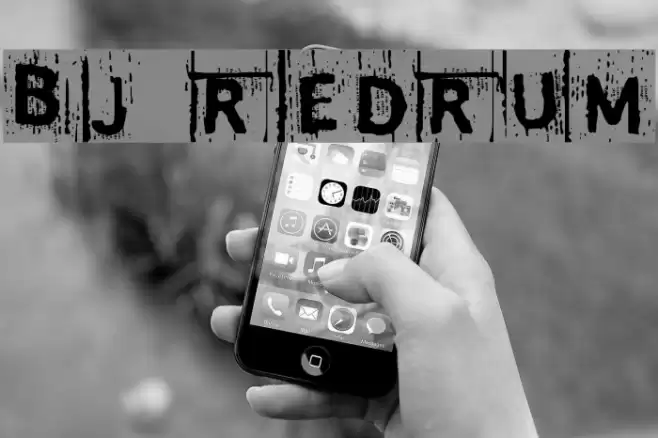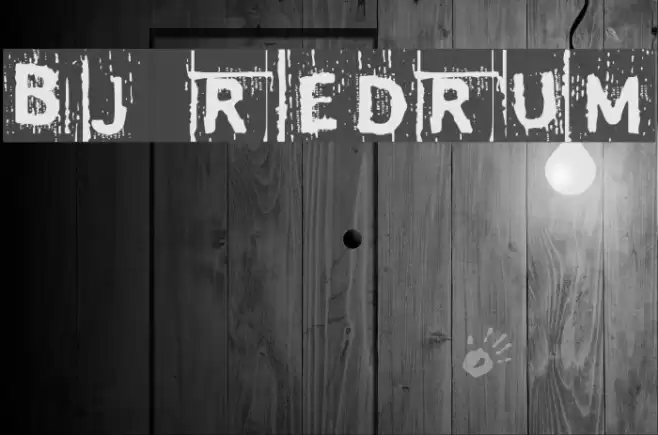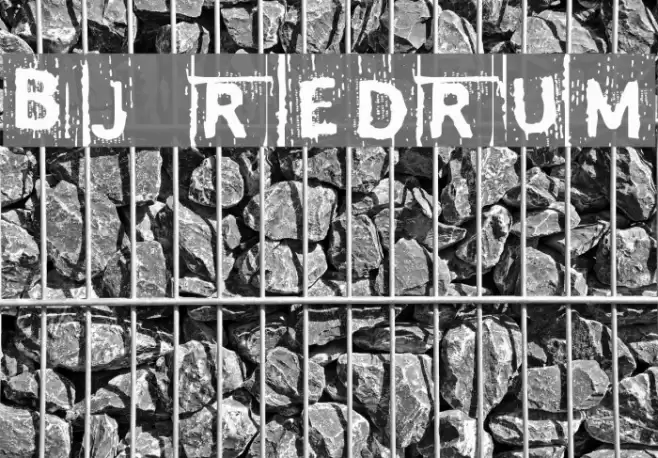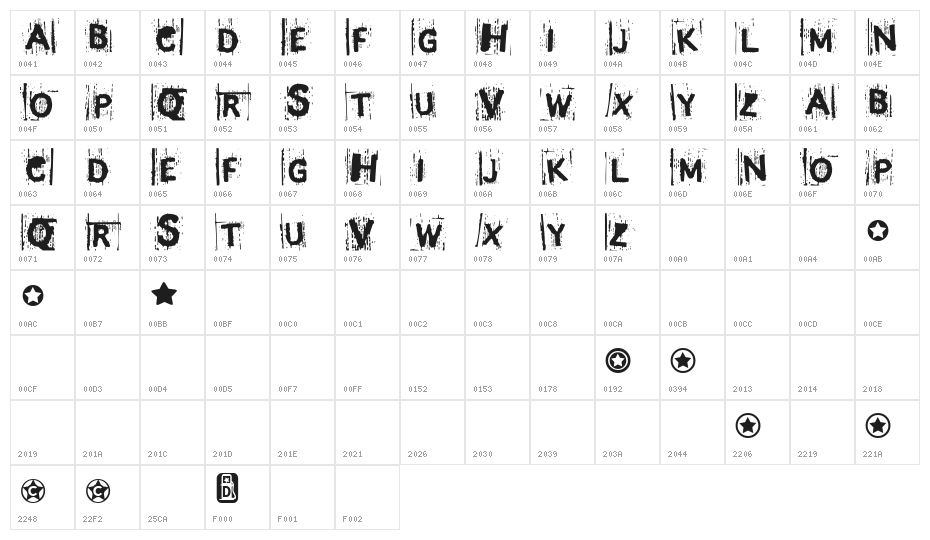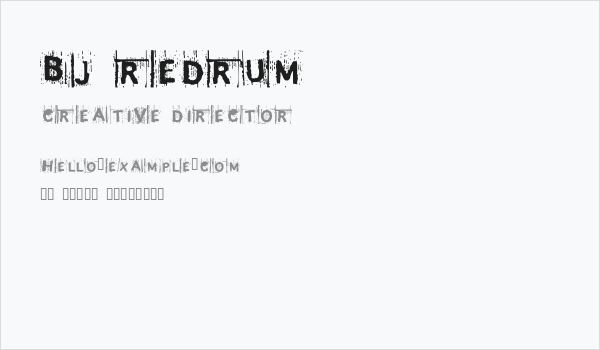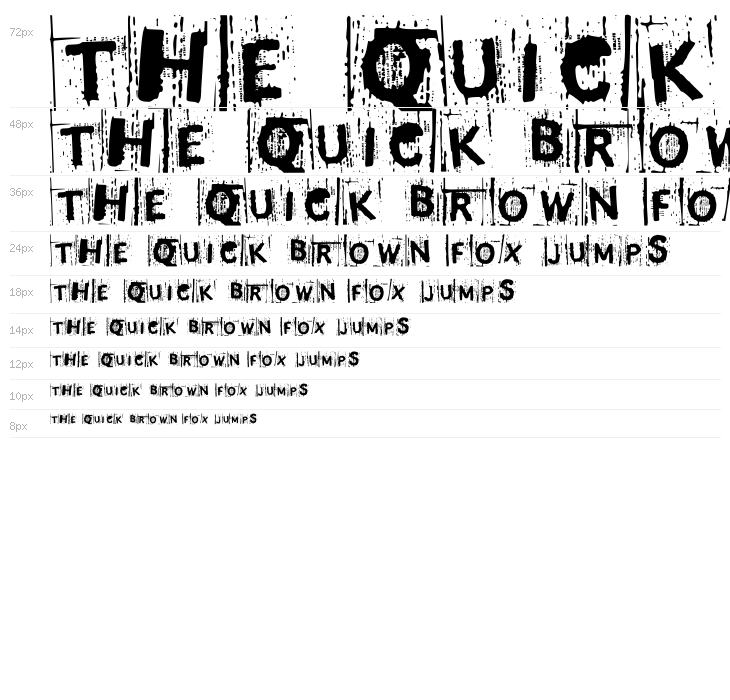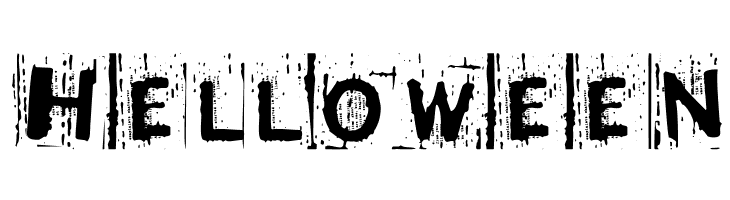
BJ REDRUM Font
BJ REDRUM Description
This font features a distressed, grunge style that gives it a rugged and worn appearance. The characters are bold and have a textured look, as if they have been stamped or printed with a rough surface. The uppercase and lowercase letters maintain a consistent style, with irregular edges and a slightly chaotic feel. This font is ideal for projects that require a raw, edgy aesthetic, such as horror-themed designs, music album covers, or rebellious branding. The overall impression is one of intensity and boldness, making it suitable for impactful headlines or titles.
A distressed, grunge-style font with a rugged, textured appearance from Halloween fonts.
- Proposed Projects: Ideal for horror-themed designs, music album covers, rebellious branding, and impactful headlines.
- Overall Style: Grunge, Edgy
- Use Case: Headlines, Logos, Themed Designs